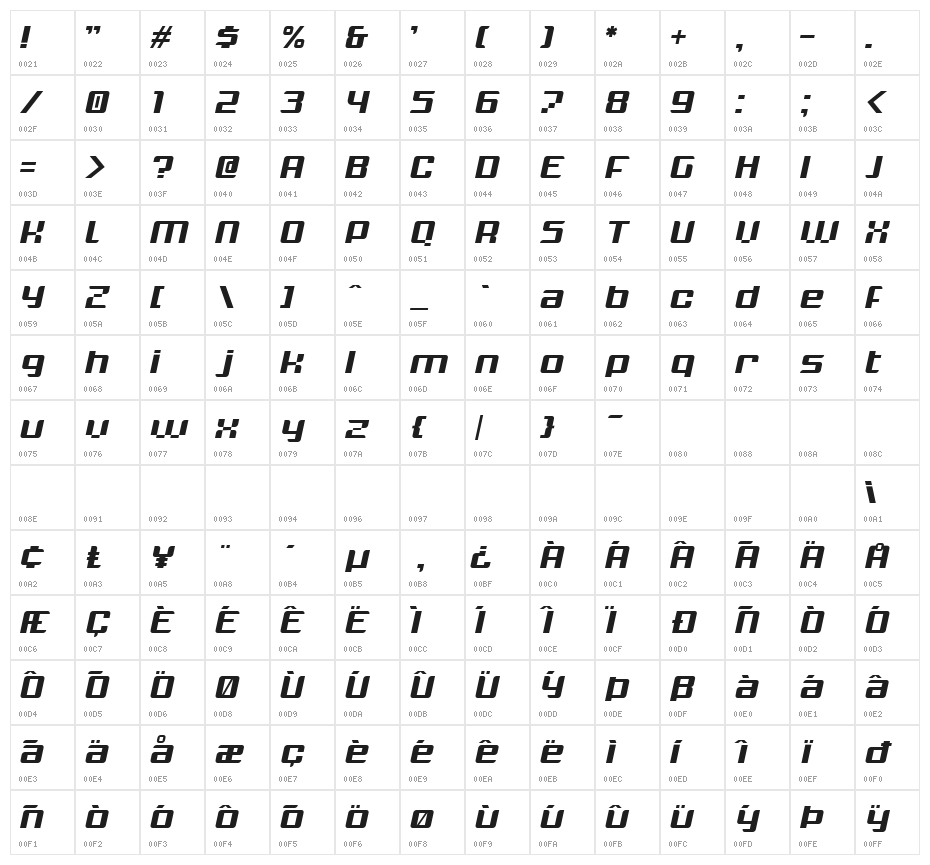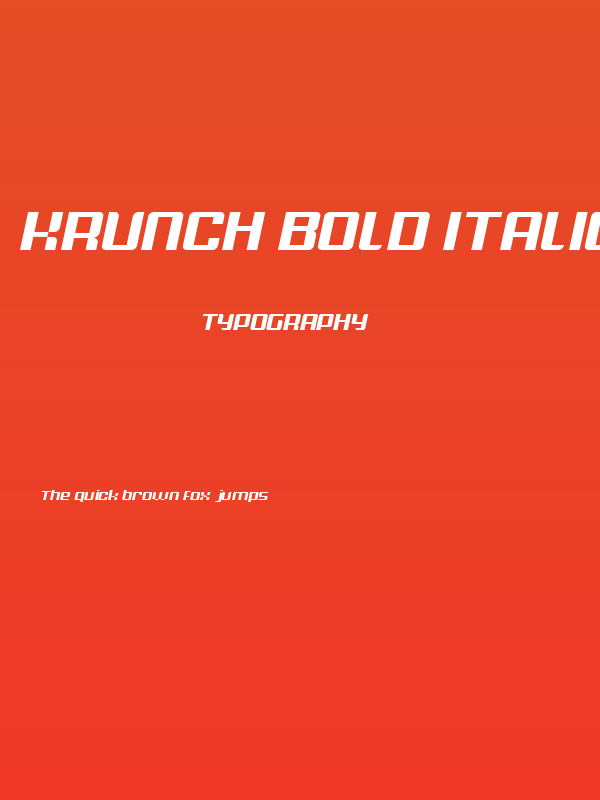
Krunch Bold Italic Font
Krunch Bold Italic Description
This font features a bold and italicized style with a modern and dynamic appearance. The characters are slightly slanted, giving a sense of motion and energy. The bold weight ensures strong visibility, making it suitable for attention-grabbing headlines or impactful logos. The geometric shapes and clean lines contribute to its contemporary look, while the consistent stroke width maintains readability. The font includes a full set of uppercase and lowercase letters, numbers, and a variety of special characters, making it versatile for various design needs.
Proposed ProjectsIdeal for sports branding, dynamic posters, modern logos, and tech-related designs.